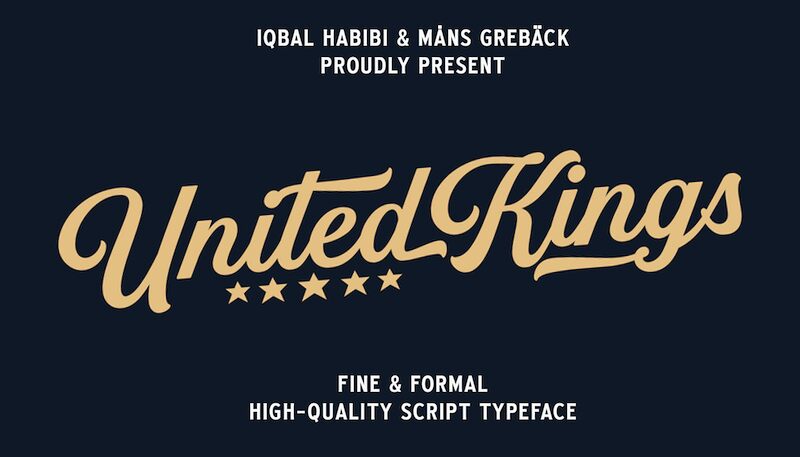
United Kings is a stunning calligraphy font designed by Mans Greback. With its semi-condensed width, it's perfect for projects that require elegance and sophistication. Its graceful curves and intricate details make it suitable for wedding invitations, luxury brand logos, and fashion magazine headlines. This font typeface also works well in digital media design such as social media posts and website headers. United Kings is sure to add a touch of class to any project and will leave a lasting impression on your audience.
United Kings is a masterfully crafted formal script font that exudes an air of perfection and fine art.
The exquisite letterforms of United Kings make it a great choice for formal logotypes.
Use to make tail swashes, or multiple for longer swashes.
Example: Kingdom
Use underscores _ anywhere in a word to make an underline.
Example: Belo__ved
Use # after any letter to give it a crown.
Example: Que#en